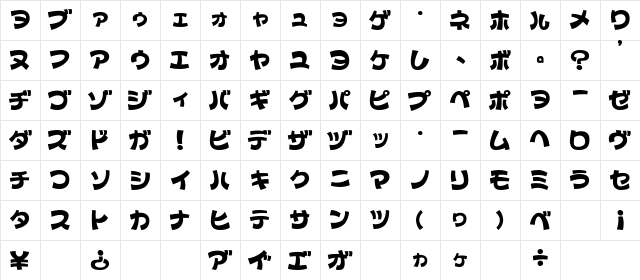
ColopocleKT Regular
Design Context for ColopocleKT Typeface
ColopocleKT offers clean, dependable letterforms without strong stylistic allegiance, making it a practical choice for designers who need flexibility.